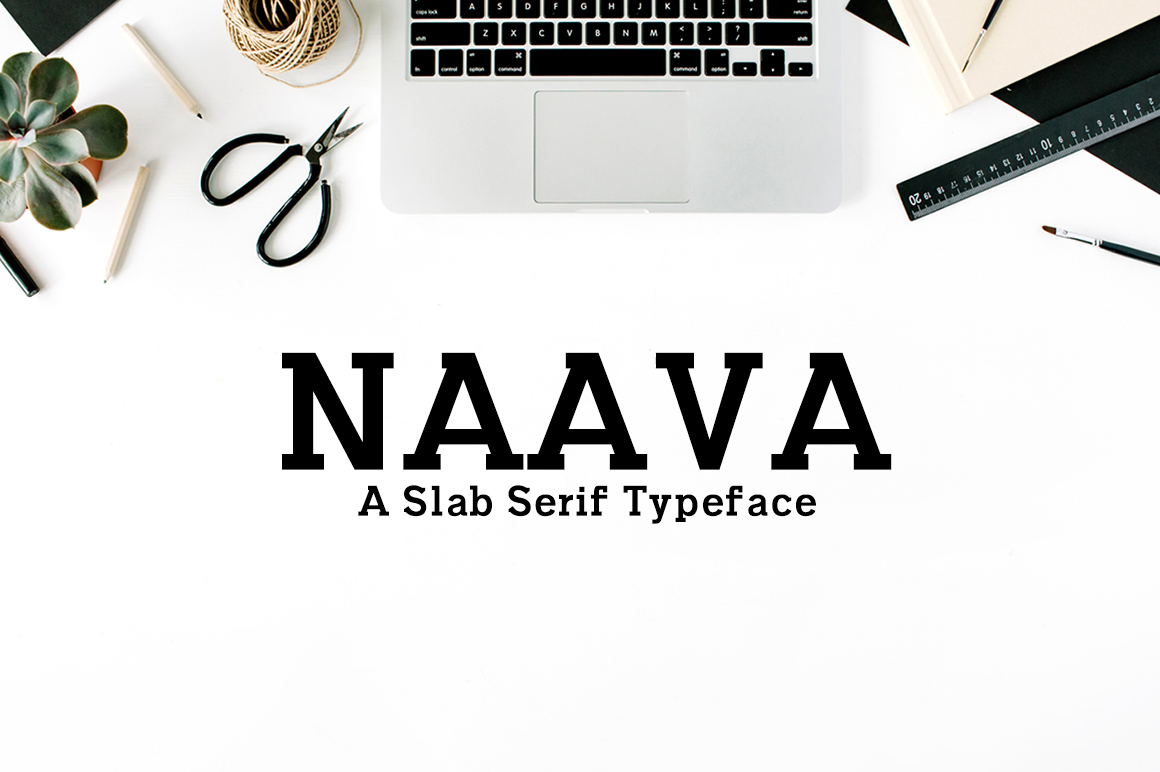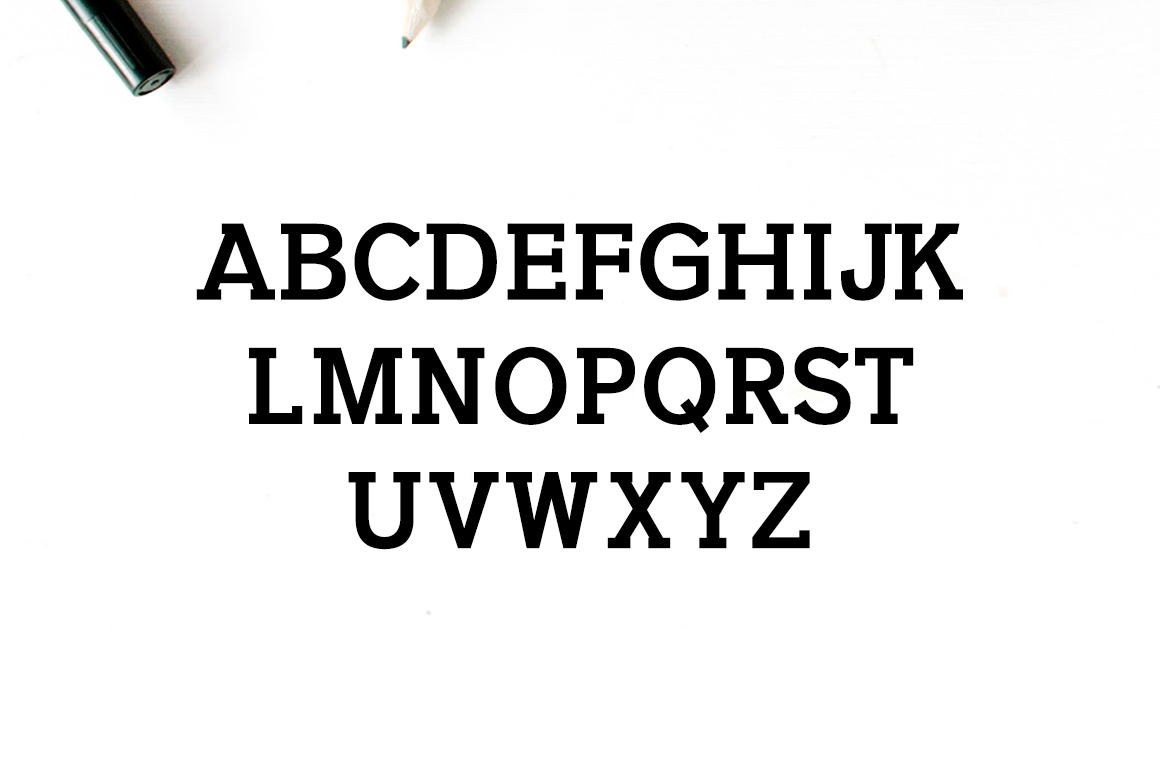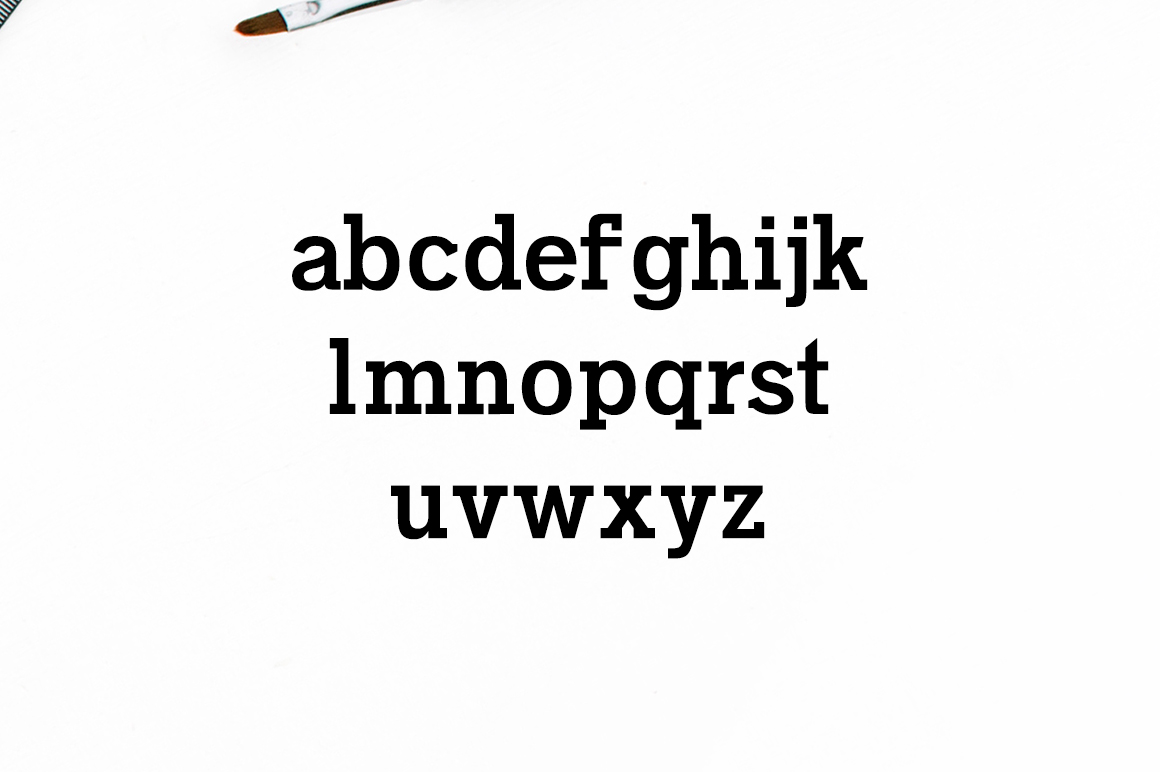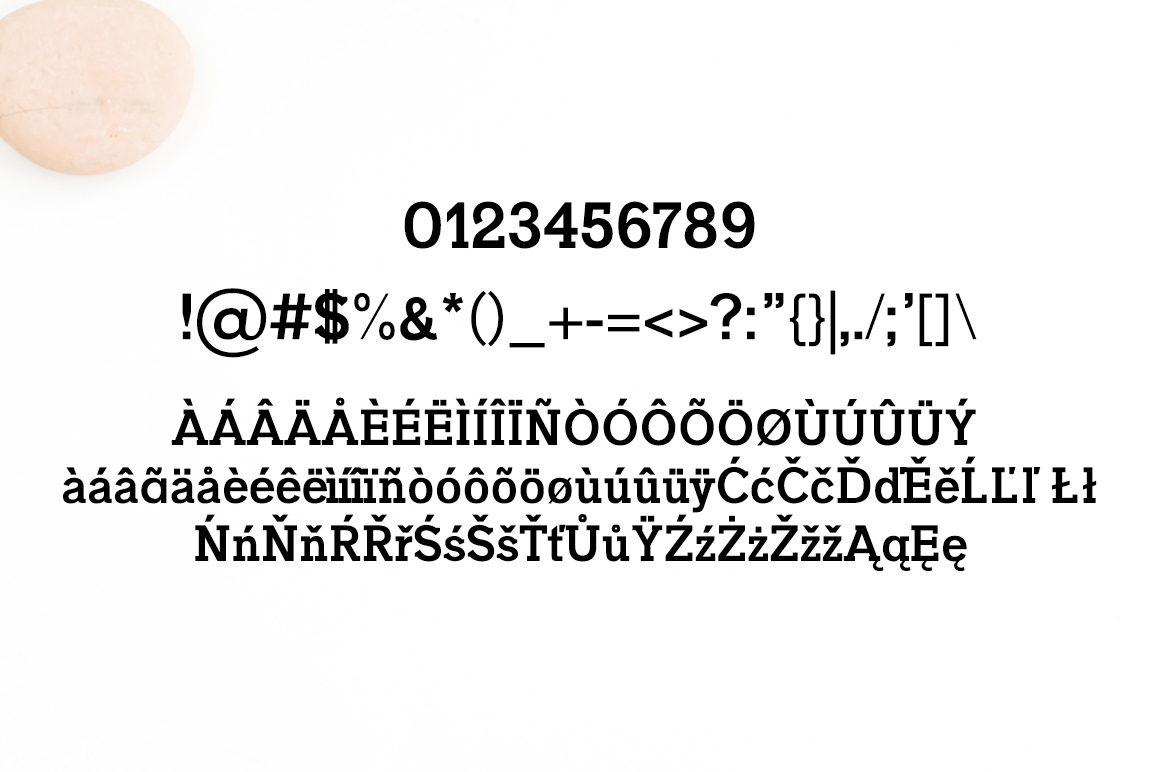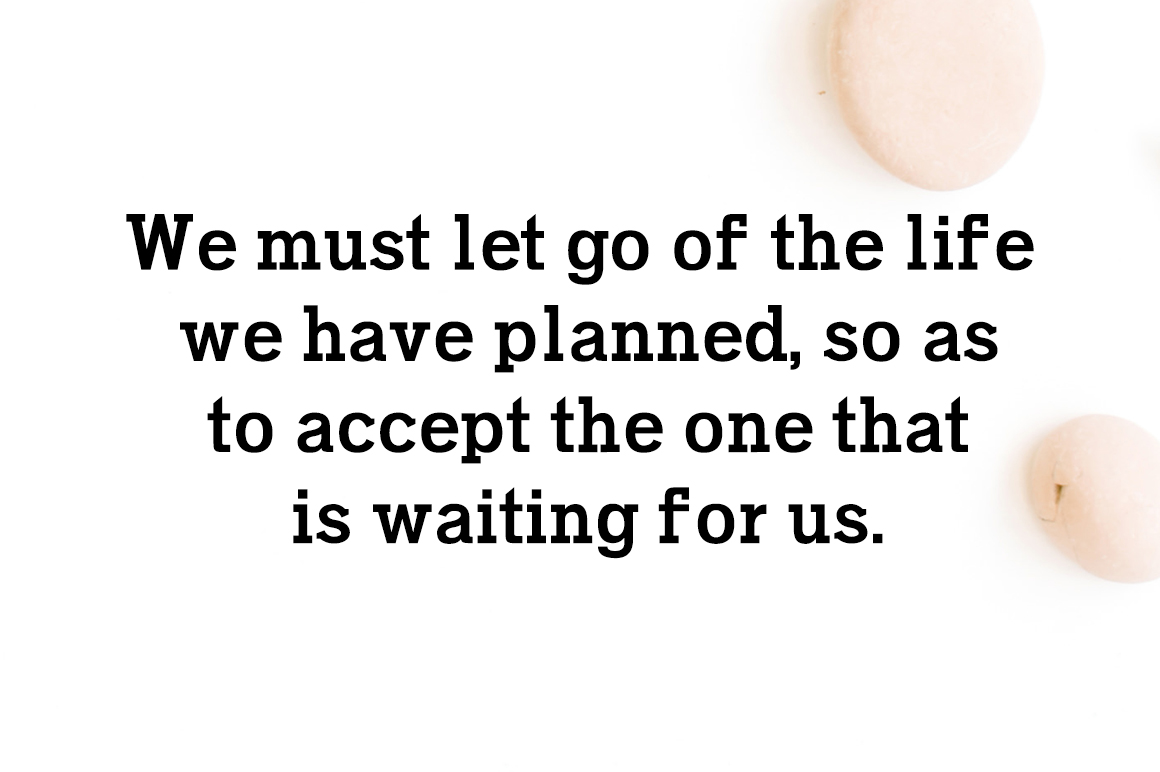
Naava
Naava: An Elegant and Versatile Slab Serif Font
Naava is a gorgeous and timeless slab serif font that offers designers a powerful tool for creating stylish and impactful typography. This font family combines classic slab serif characteristics with a modern, elegant touch, making it suitable for a wide range of design projects.
Key Features of Naava Font
• Versatile Weight Range: Naava comes in 3 different weights, providing flexibility for various design needs.
• Timeless Design: Offers a classic yet contemporary look that stands the test of time.
• Stylish Appearance: Perfect for giving your designs and displays a classy yet understated look.
Ideal Uses for Naava
Naava’s versatile design makes it particularly well-suited for:
• Creative displays and presentations
• Modern branding projects
• Editorial layouts requiring elegance
• Website headers and digital media
Comparison with Other Slab Serif Fonts
While Naava shares characteristics with other slab serifs like Tecnica Slab Family, it stands out for its unique blend of elegance and versatility. Unlike more playful options such as Klub Katz, Naava offers a more refined and timeless aesthetic suitable for a wide range of professional applications.
When incorporating Naava into your designs, consider the following tips:
• Utilize different weights to create hierarchy and visual interest in your layouts
• Pair with sans-serif fonts for a balanced, modern look
• Use for both headlines and body text to showcase its versatility
• Consider using it in projects where you want to combine classic slab serif structure with contemporary elegance
Naava is an excellent choice for designers looking to add a touch of timeless elegance to their work. Its range of weights and classic slab serif design make it stand out in the world of typography. Whether you’re working on logo designs, editorial layouts, or creating eye-catching website headers, Naava offers the perfect blend of style and readability.
Explore how Naava can elevate your design projects with its timeless elegance and versatile weights. From modern branding to sophisticated editorial designs, this font provides the tools to create impactful and refined typography.